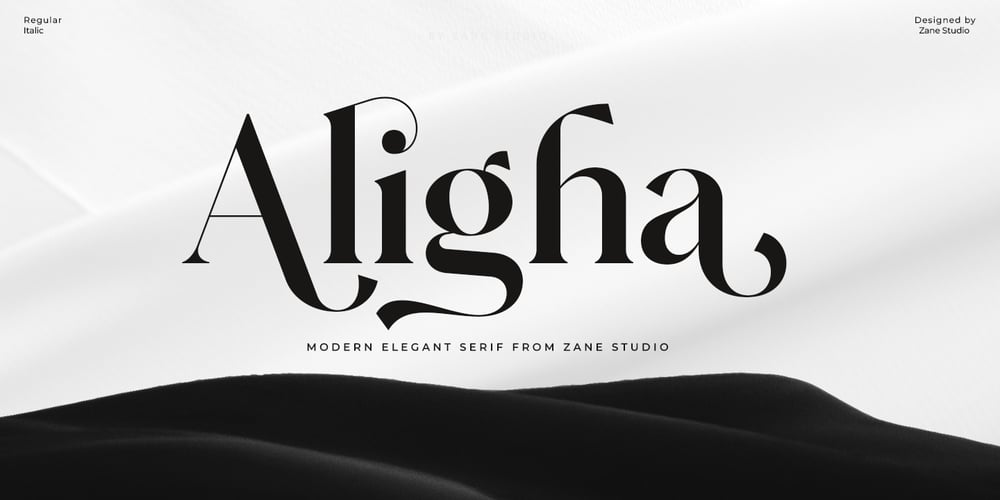
Aligha Font Family was designed by Mur Zani and published by Zane Studio. Aligha contains 2 styles and family package options. Introducing the new Elegant Modern Serif!!! Aligha is a modern, elegant and classy serif typeface, best suited for displaying titles, logos, branding, magazines, product packaging and invitations. Shiny comes with clean lines and smooth curves that add an extra touch of class to any project.Aligha is built with OpenType features and includes 110 ligatures, alternatives, numbers, punctuation, and also supports other languages.